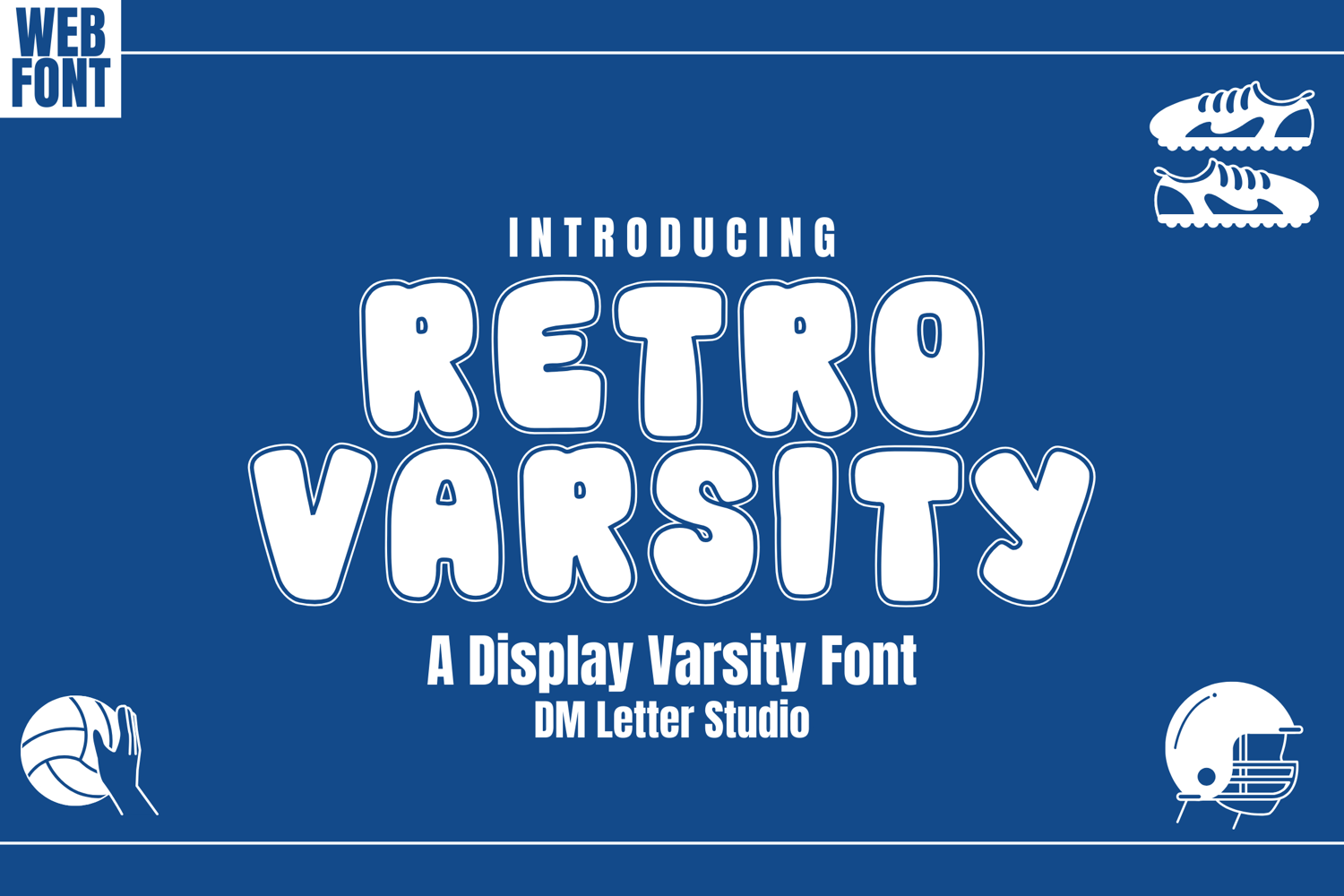
Retro Varsity Font
Retro Varsity Font is a bold, athletic-style typeface inspired by classic varsity jackets and vintage college lettering. Designed with a strong, nostalgic flair, this font is perfect for sports team logos, school-themed projects, apparel, posters, and retro branding. Its clean lines and powerful presence make it a standout choice for designs that demand confidence, energy, and old-school charm.
Bring back the spirit of the game with Retro Varsity — a font that celebrates tradition with a modern twist.
• Bold Retro Design: Inspired by vintage varsity and collegiate styles.
• Strong and Legible: Perfect for headlines, logos, sportswear, and school-themed projects.
• All-Caps Typeface: For a consistent and bold look.
• Versatile Usage: Great for both print and digital use.